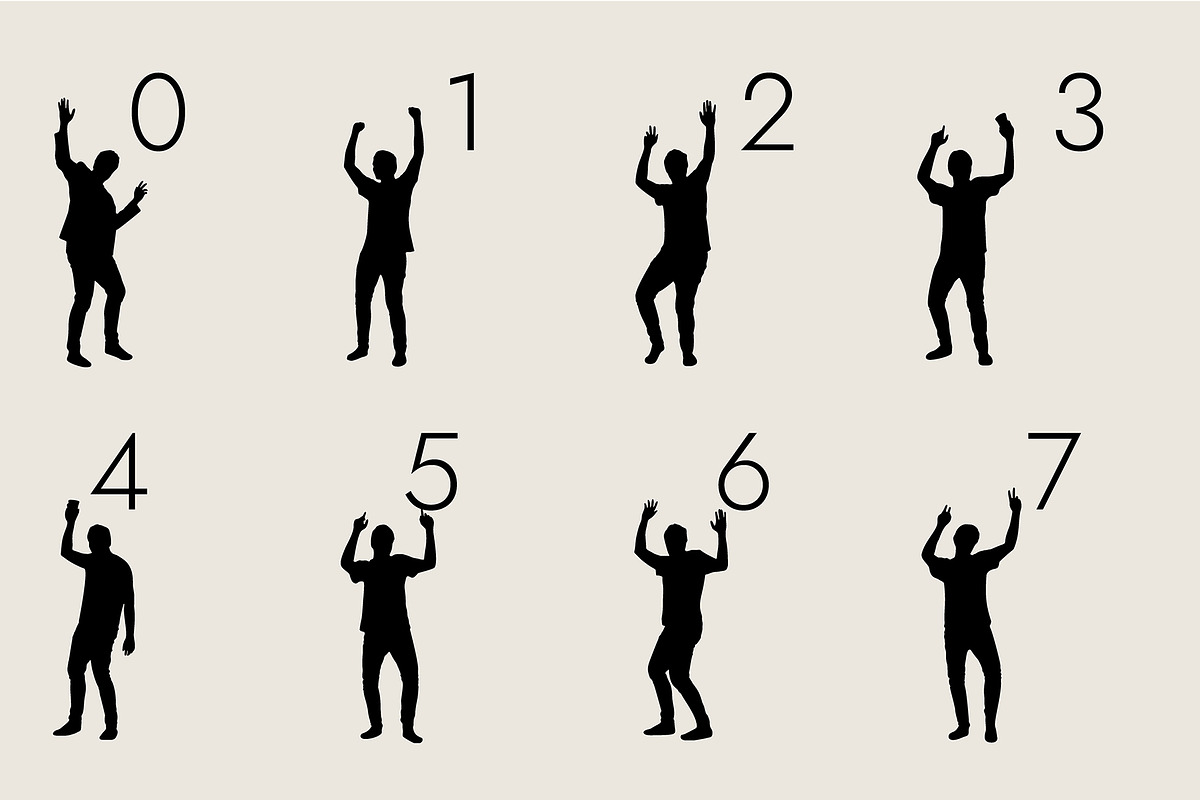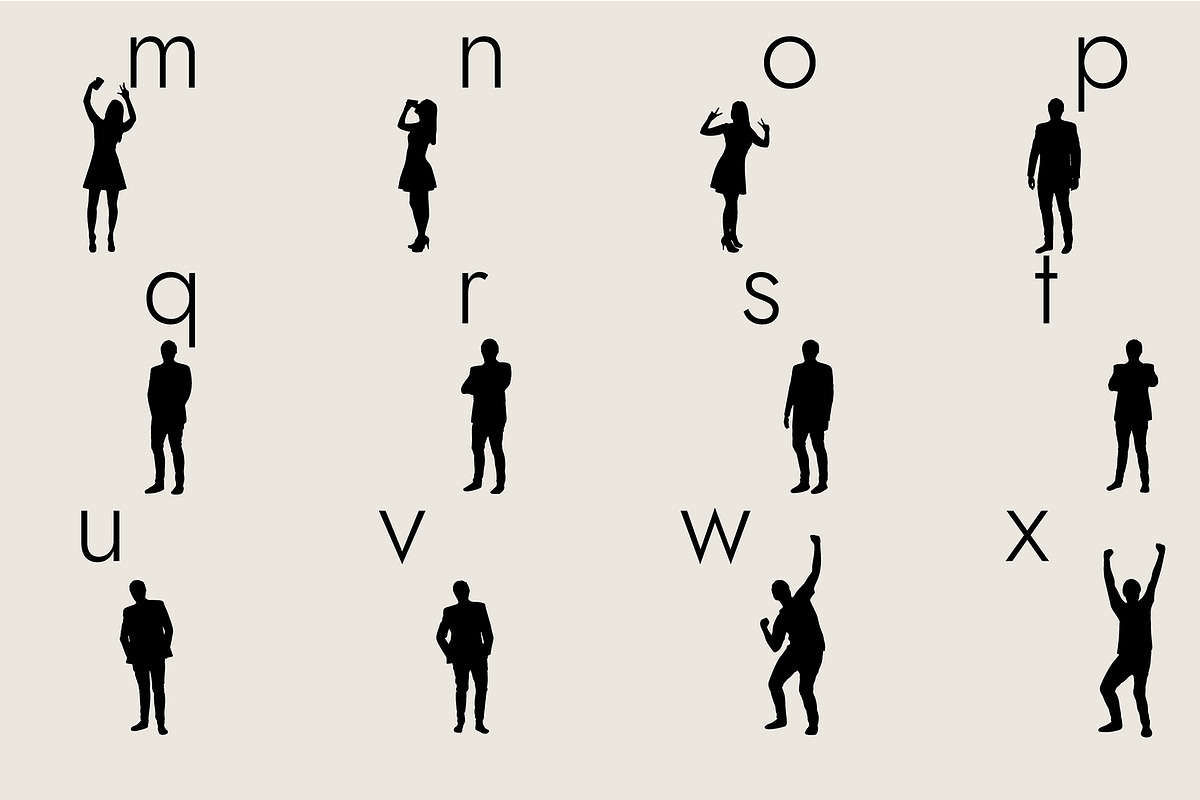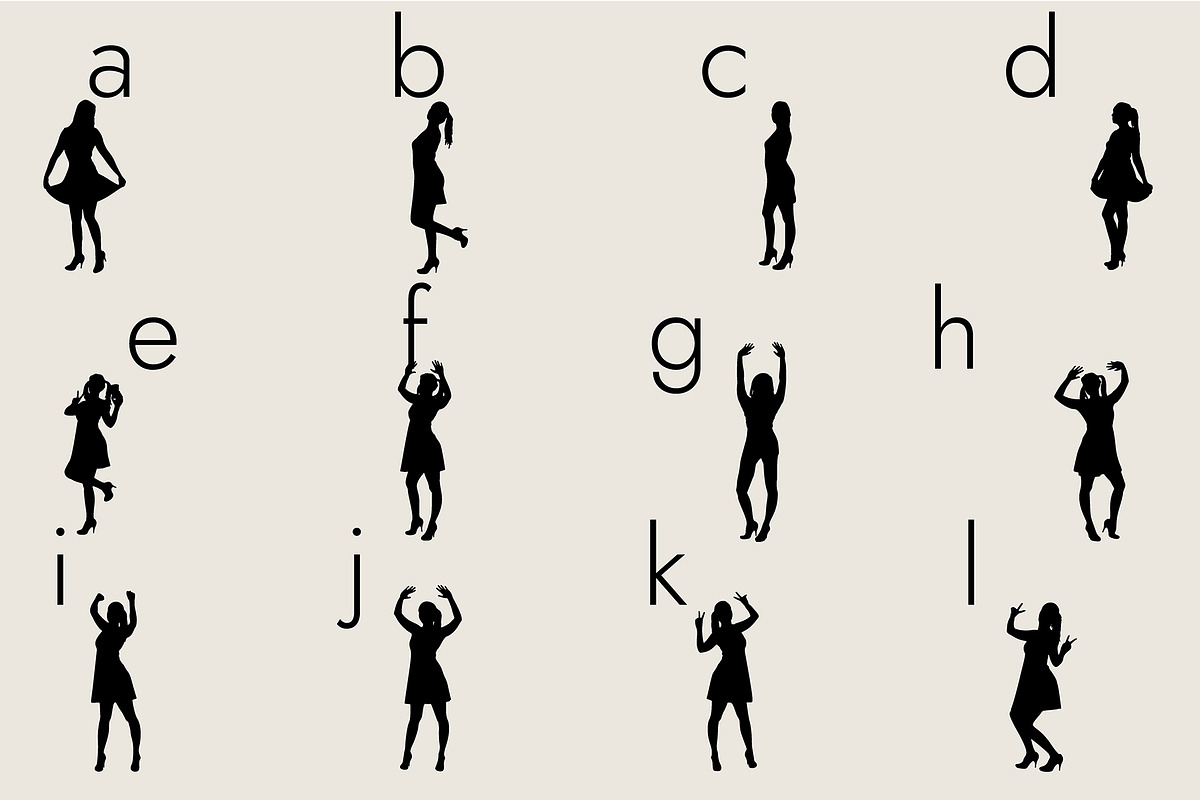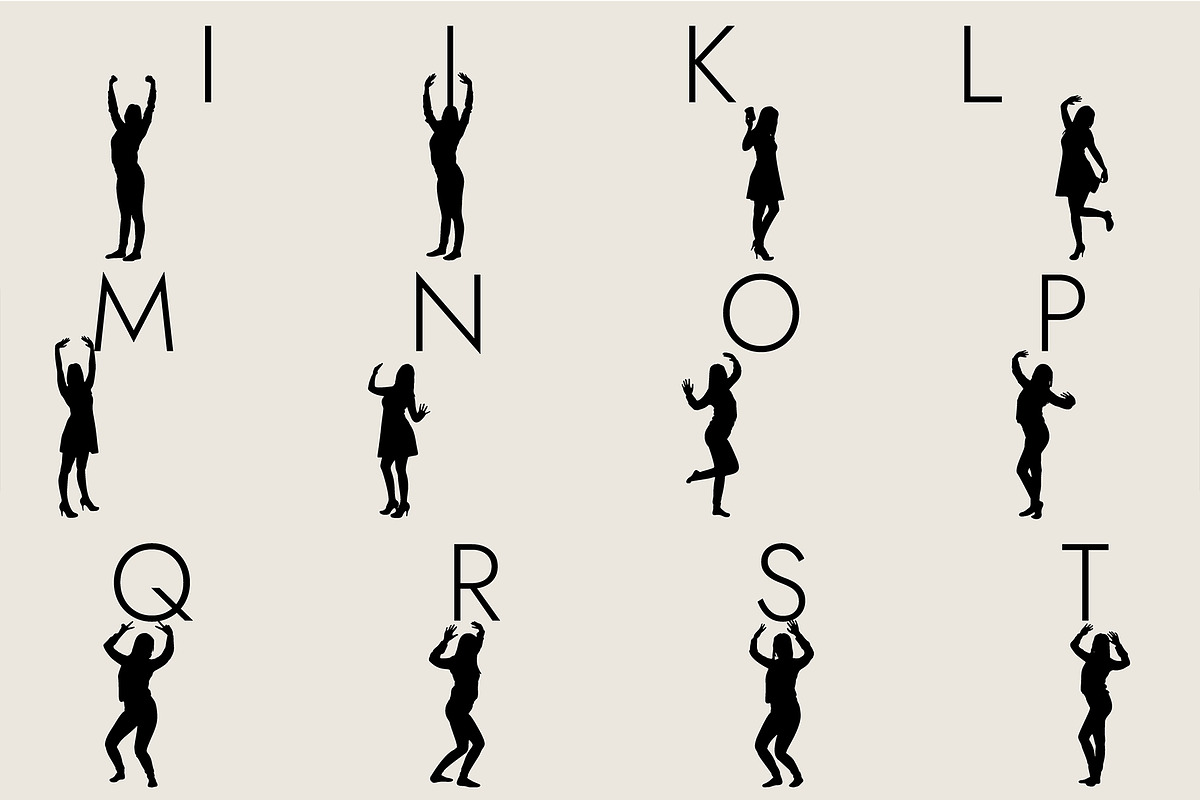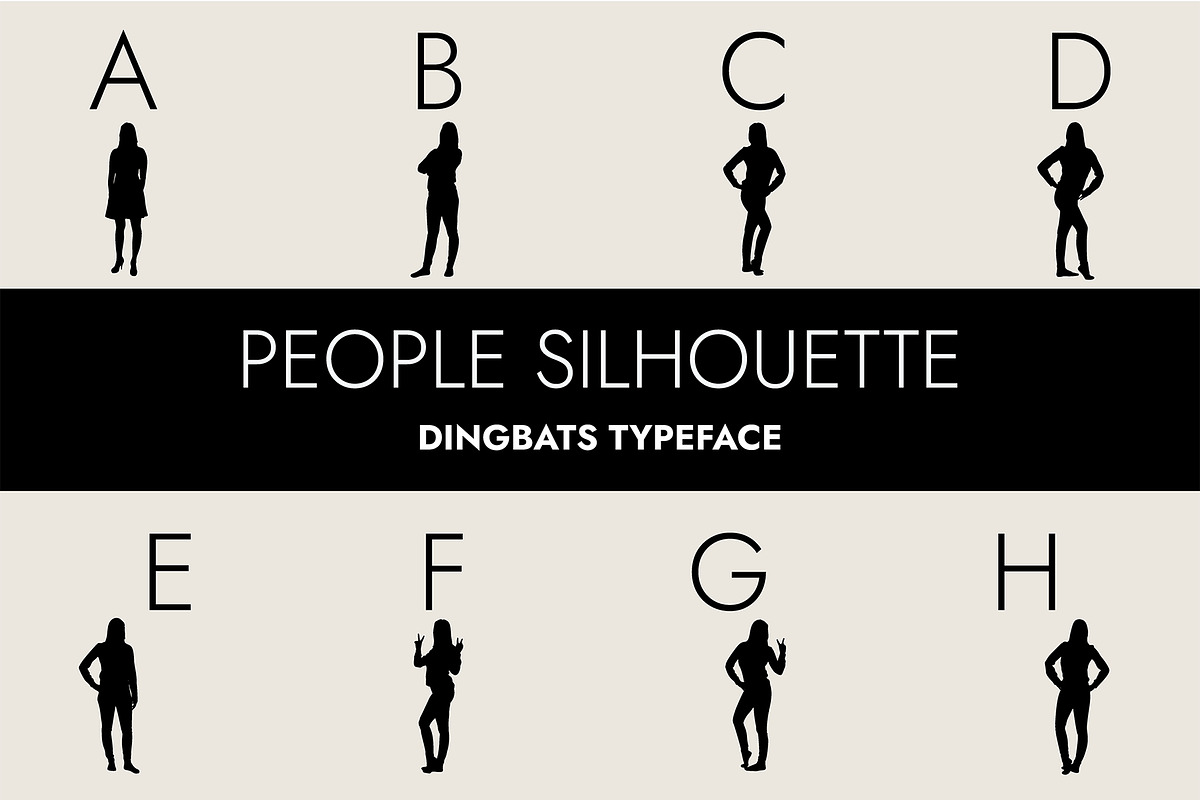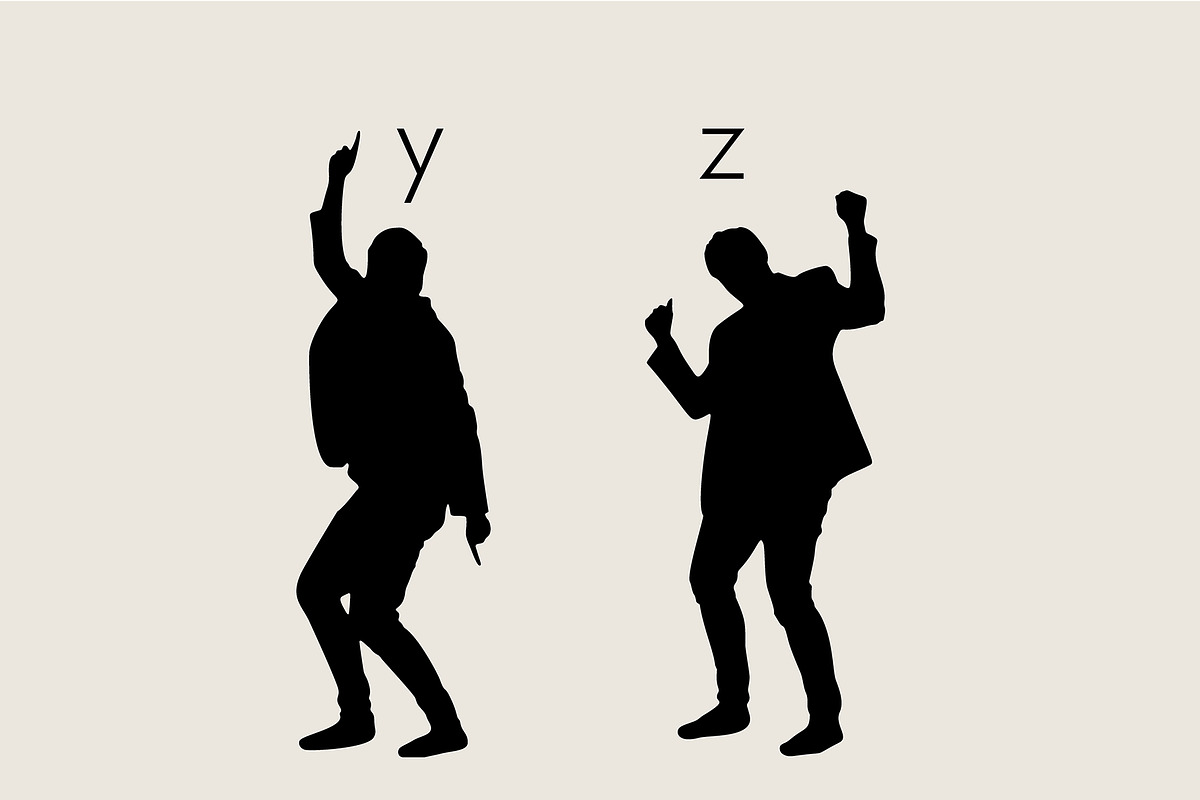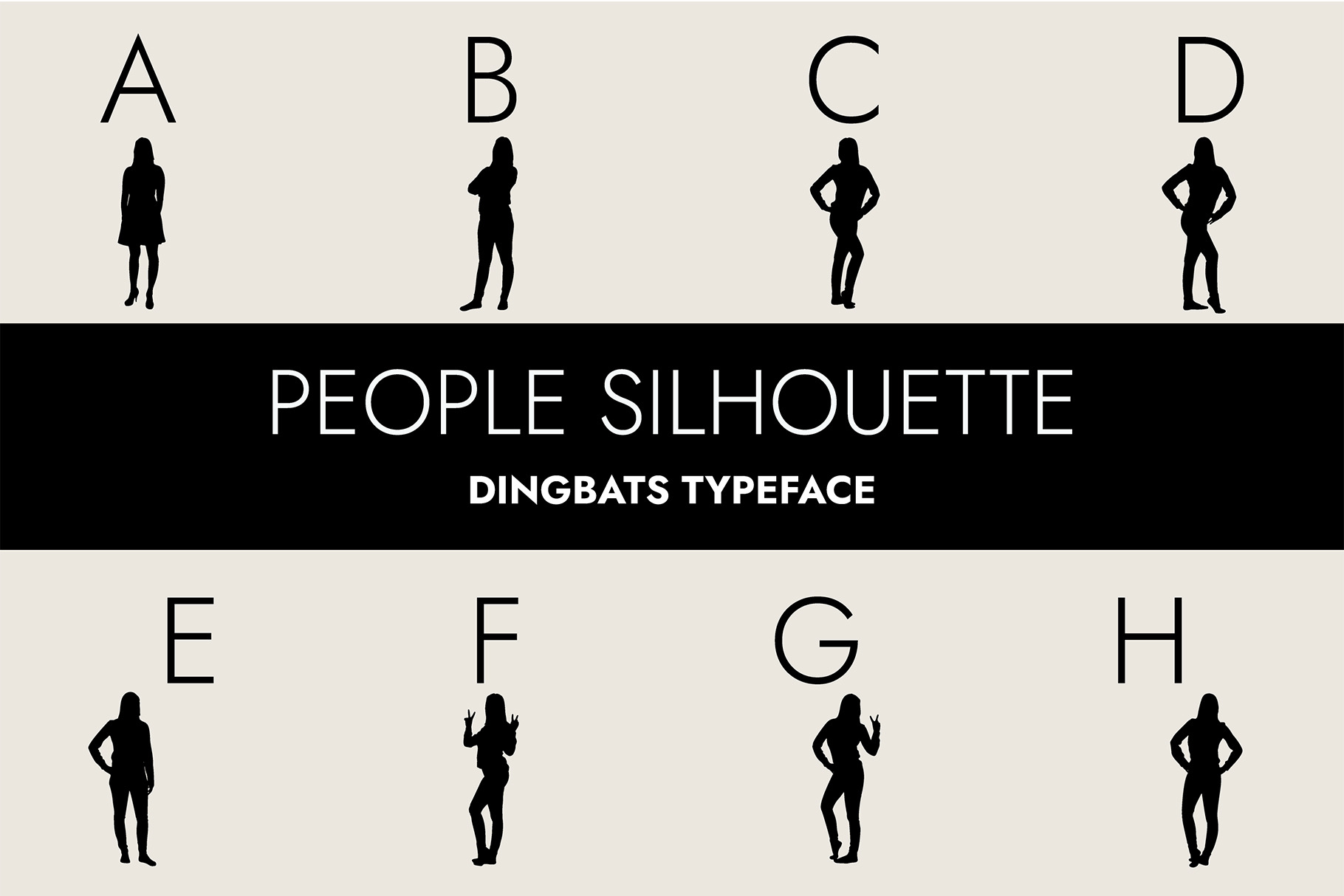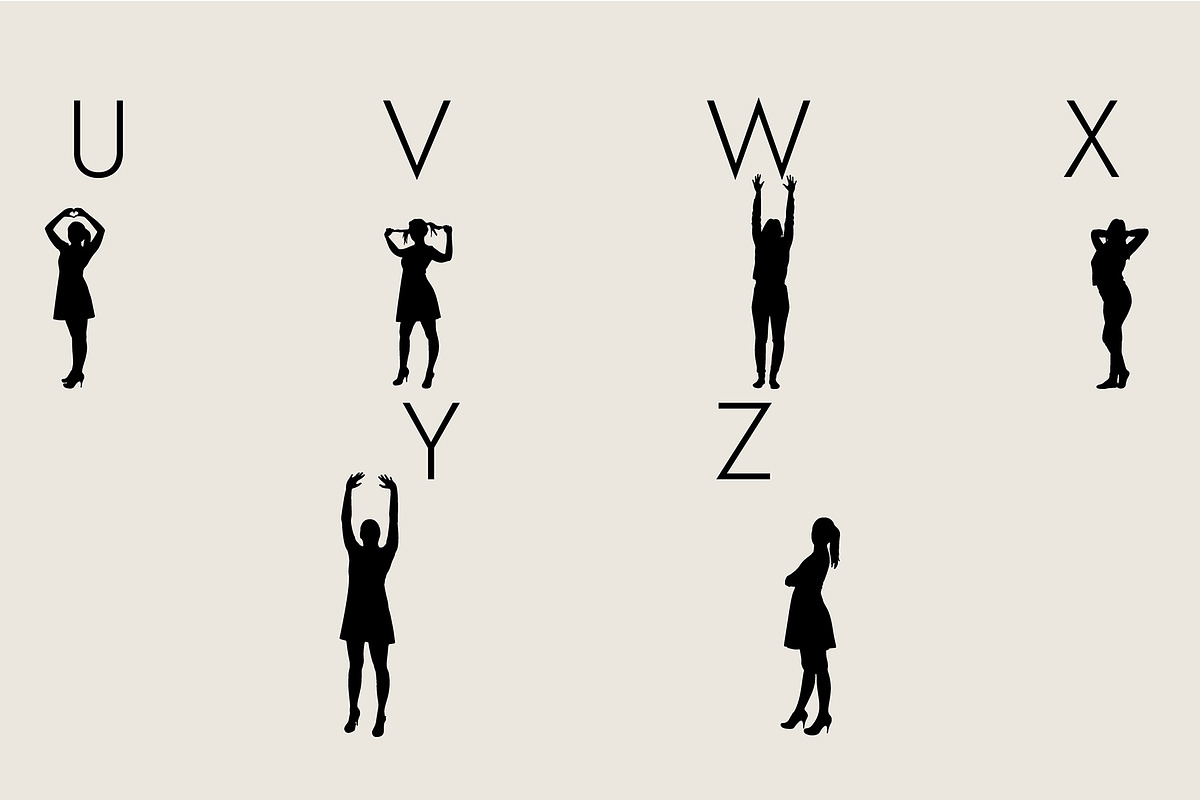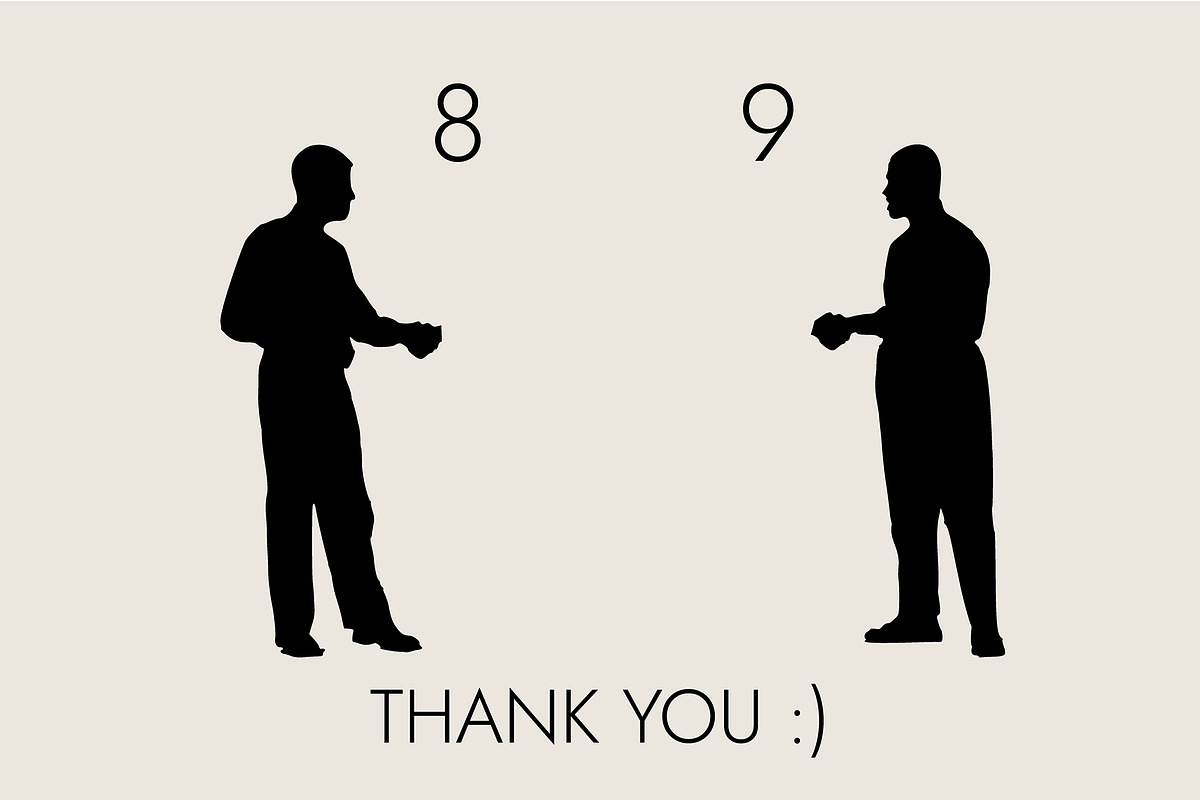
People Silhouettes Dingbats Font
People Silhouettes is a useful and chic dingbats font. It will make each of your designs look mare authentic and alive. The only limit in employing it is your imagination.